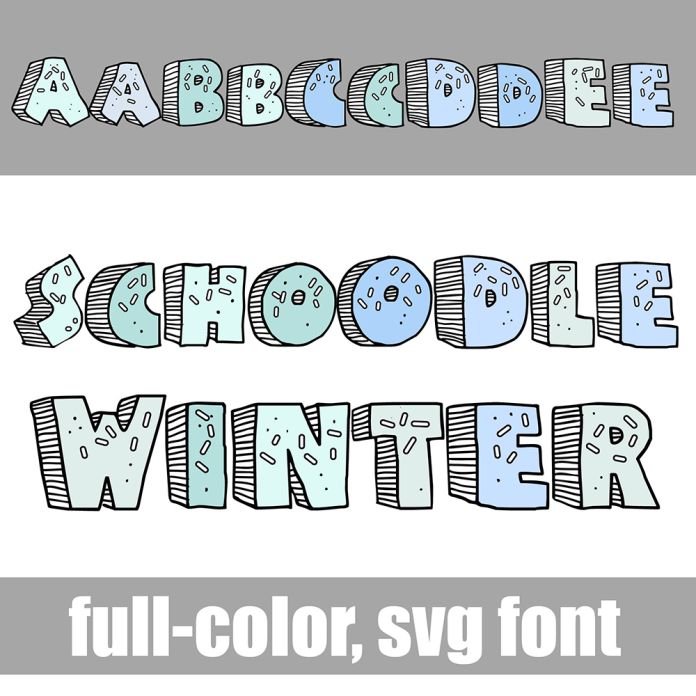
This full-color font features a blocky, hand-drawn, 3-d letter with sprinkles in a winter color palette. There is an alt case with an additional color of each letter. This font works best for titles, displays, posters and more. Please note color fonts will show as black in non compatible programs. This font type is compatible with Silhouette Studio.